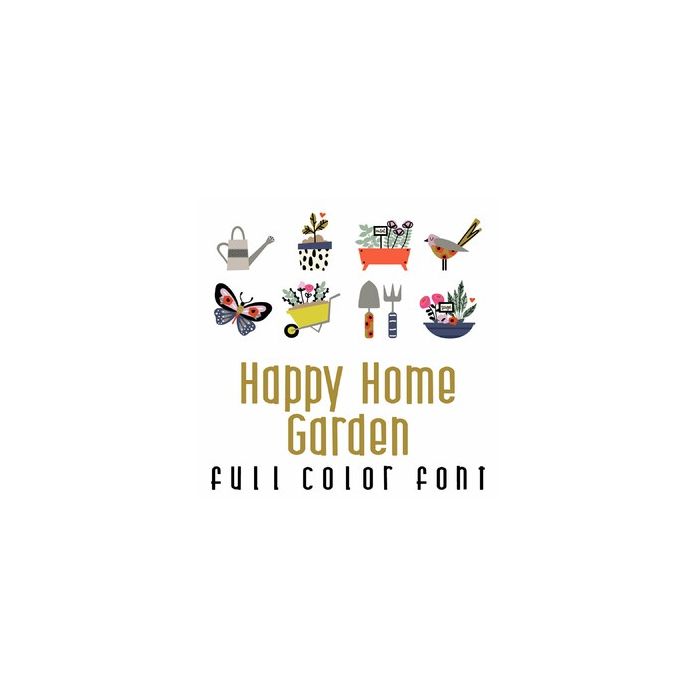
This adorable full-color doodlebat font features 26 fun garden items, flowers, and phrases. Perfect for Mother's Day, gifts, cards, decor, planner stickers, scrapbook pages and more!